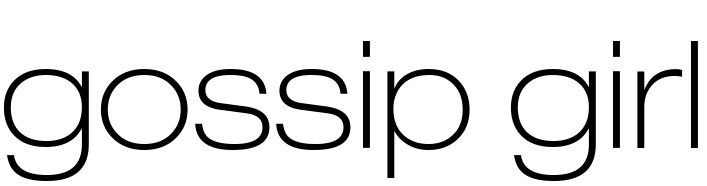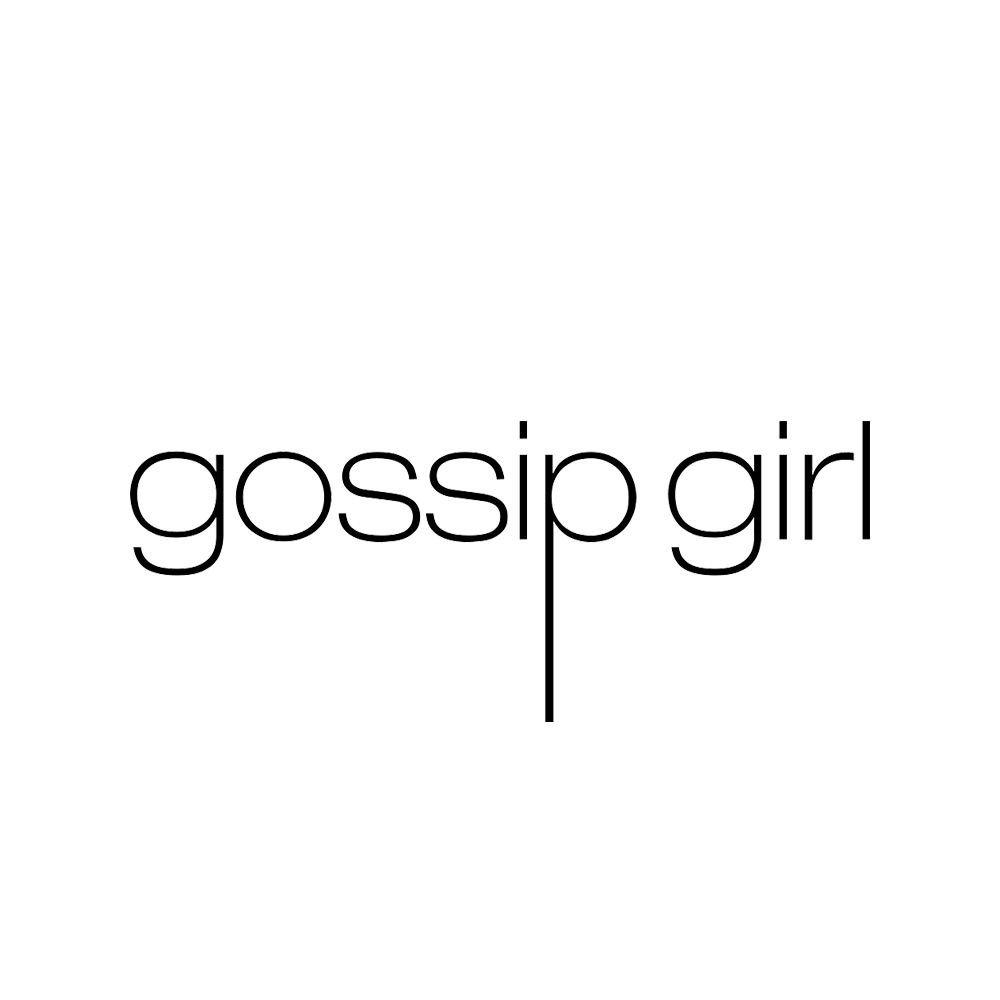
Gossip Girl Font
Fonts in UseGossip Girl is a television drama series that originally aired from 2007 to 2012. It follows the lives of wealthy teenagers living in the Upper East Side of New York City, as they navigate through love, friendships, and scandals, all while being monitored and exposed by an anonymous blogger known as "Gossip Girl".
The design of the logo features a font resembling Neue Helvetica 33 Thin Extended, featuring an elongated letter "P". This font is commercially available for purchase here.